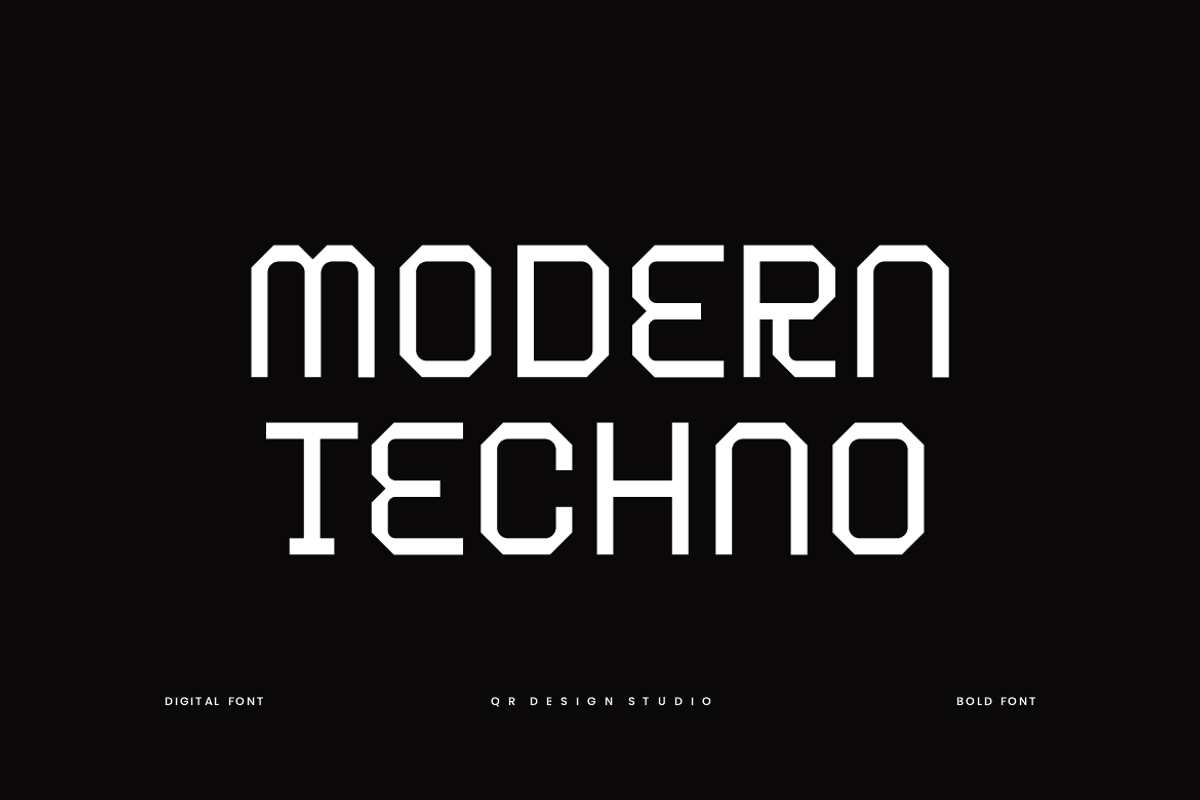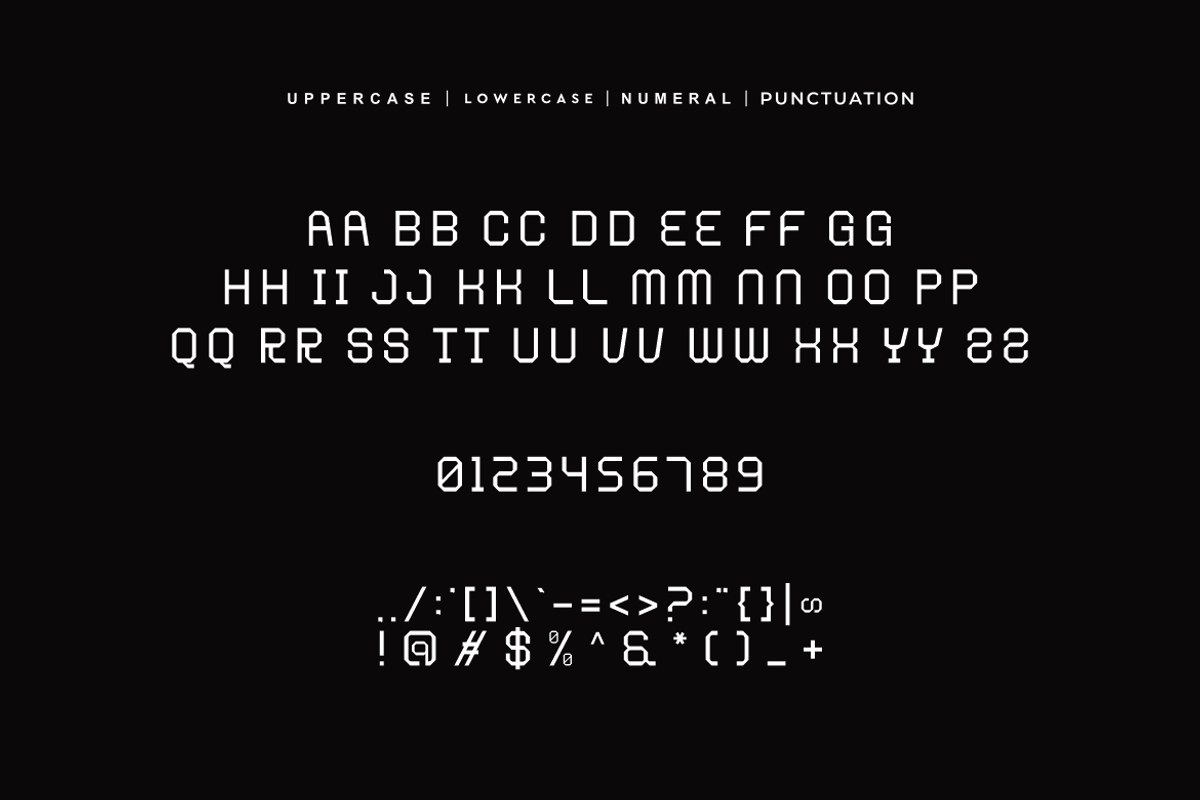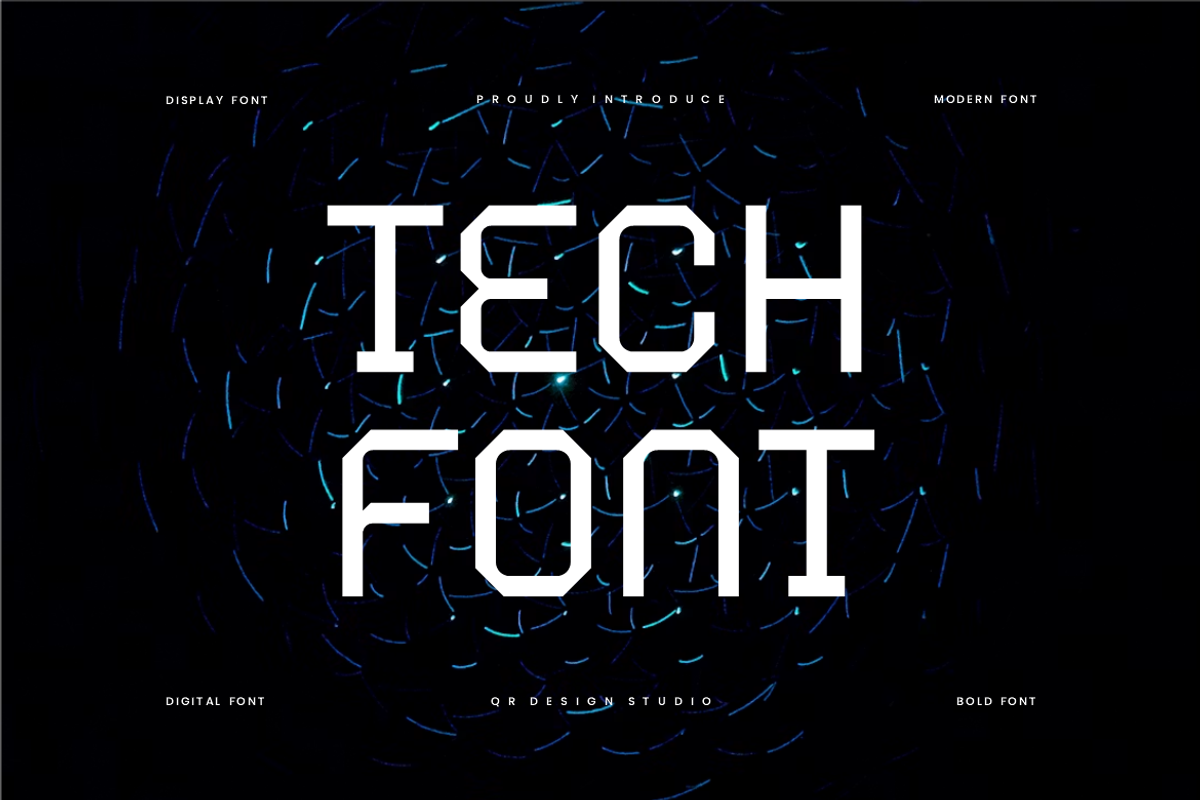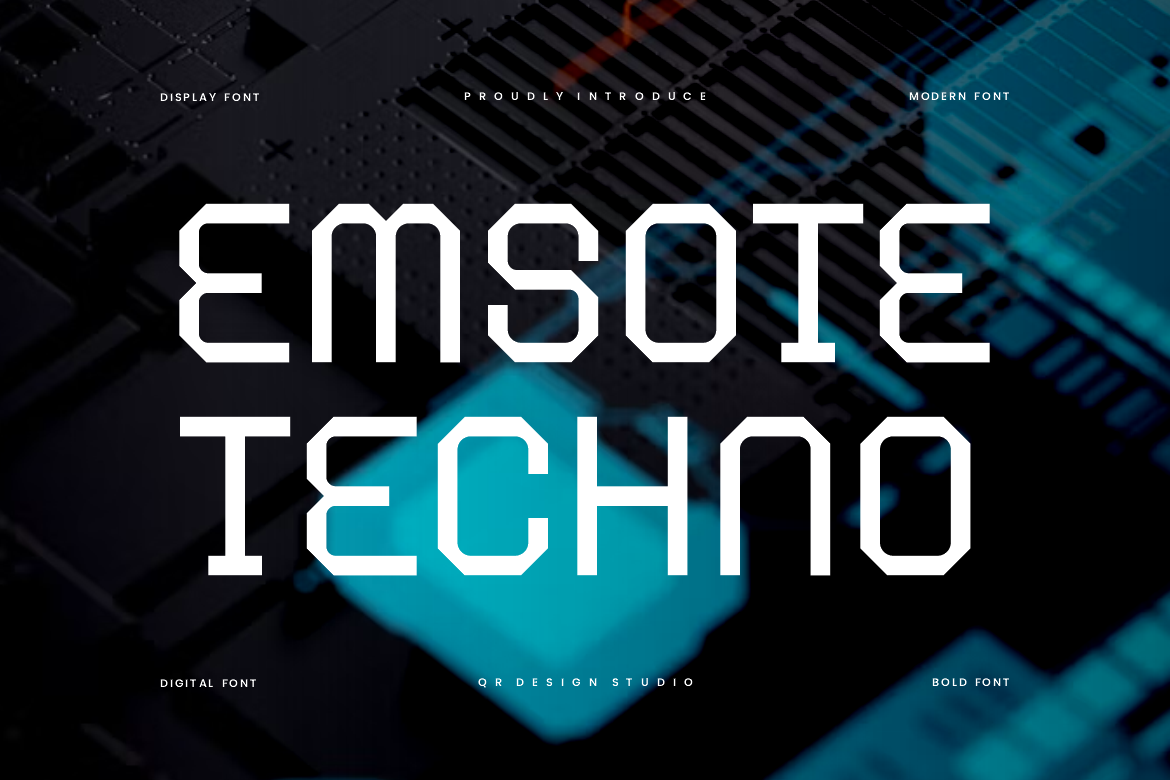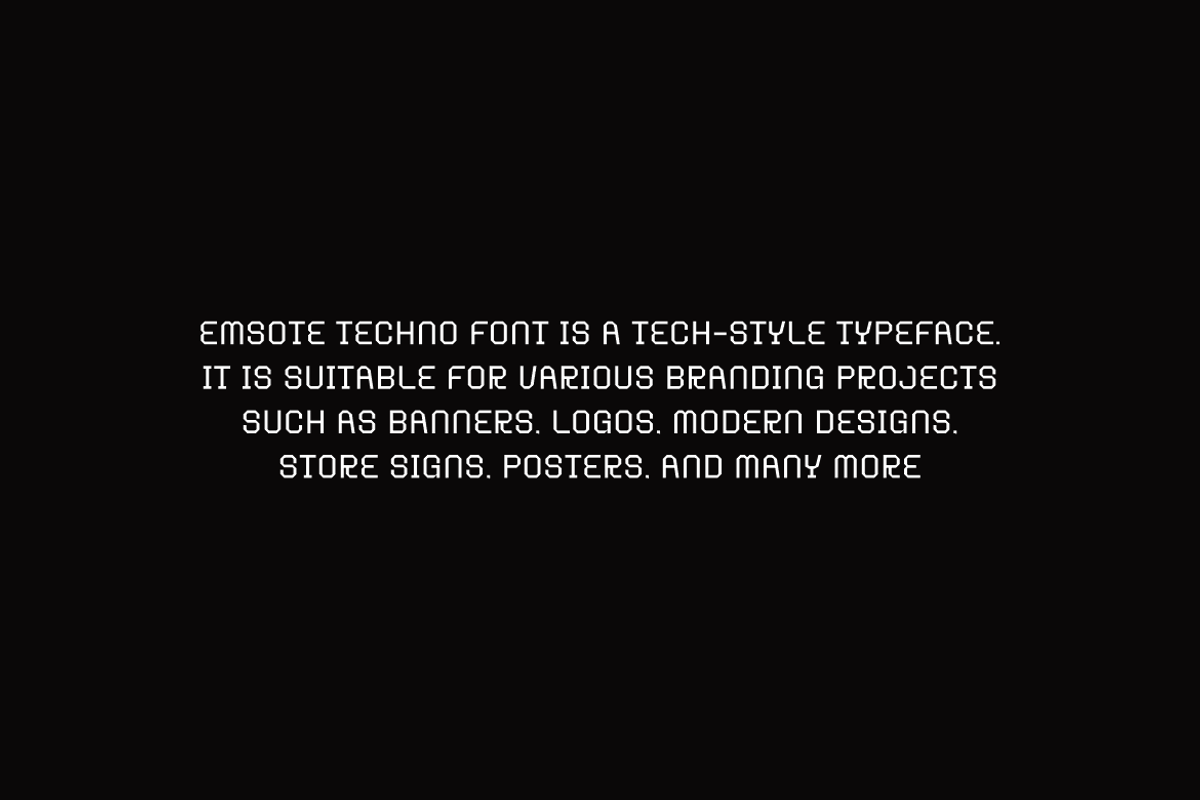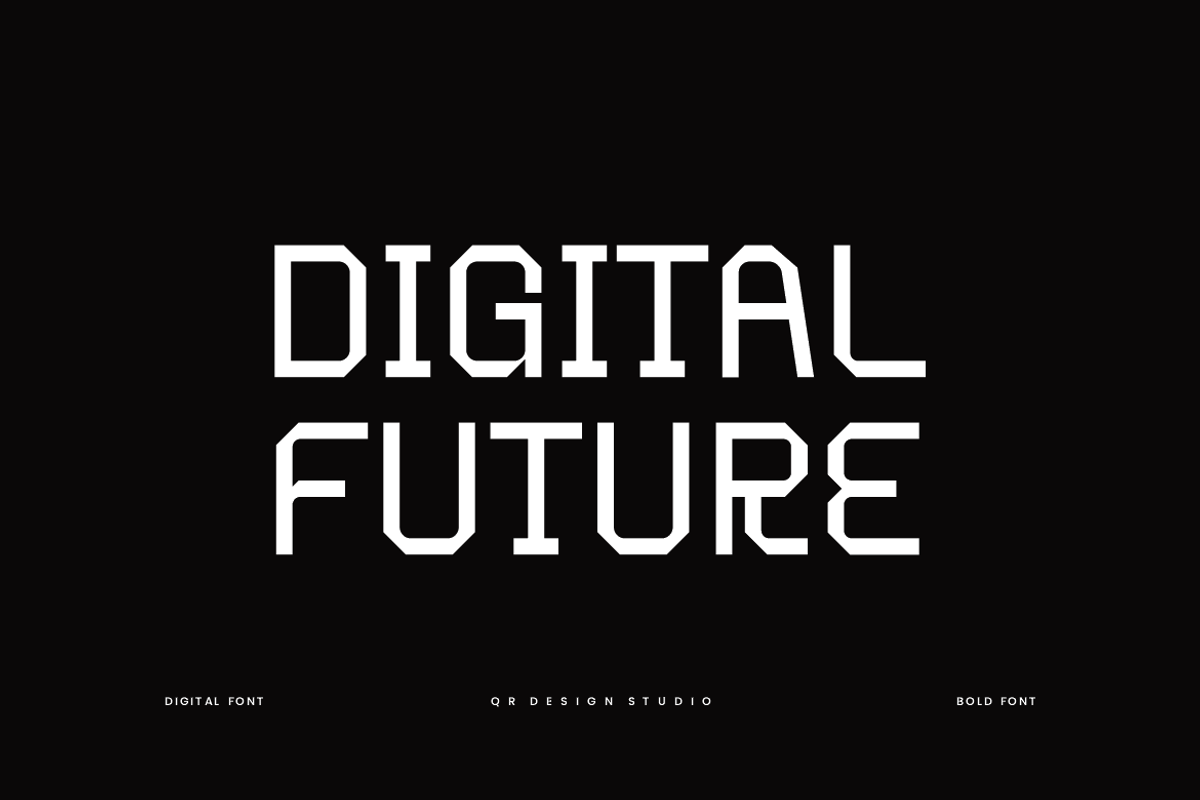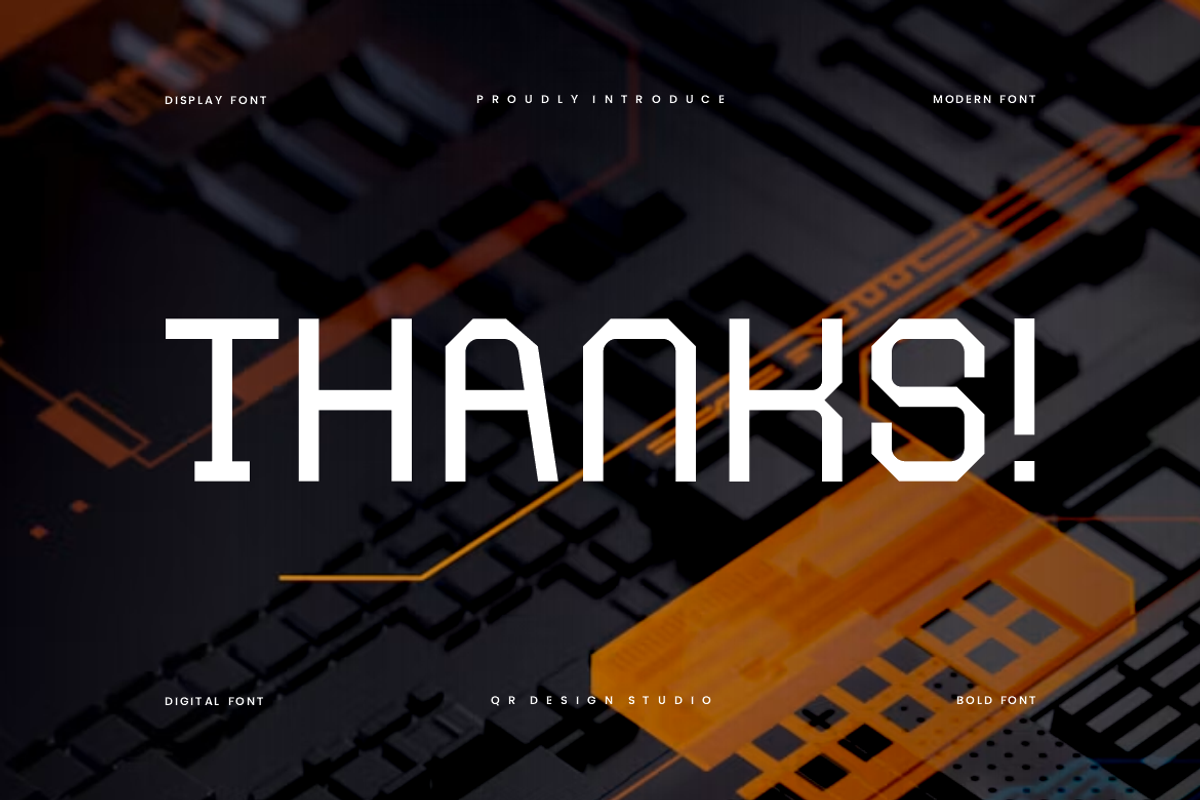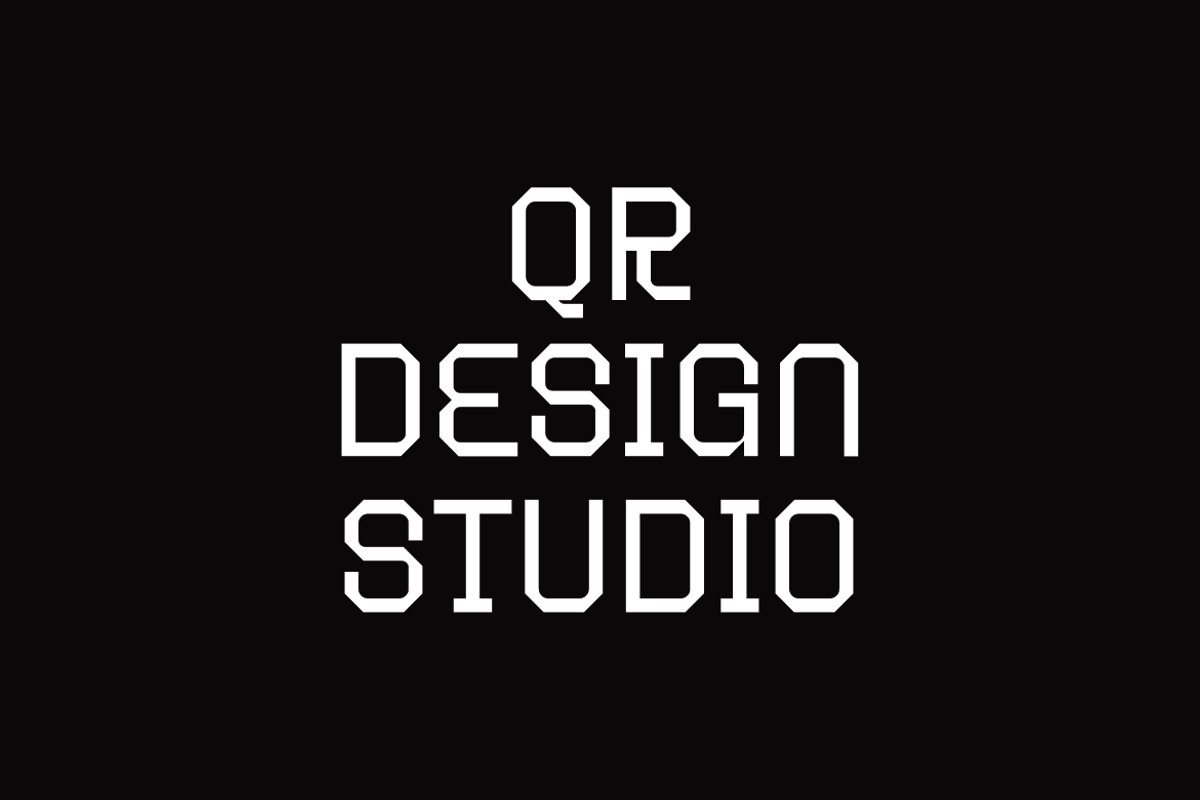
Emsote Techno Font
Emsote Techno Font is a tech and authentic display typeface.
It’s perfect for various branding projects such as logos, modern designs,
and more. This font stands out beautifully in a wide range of contexts.